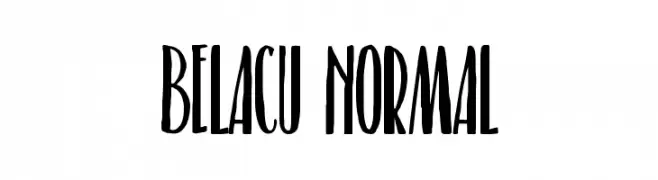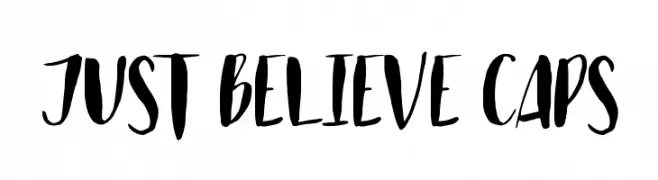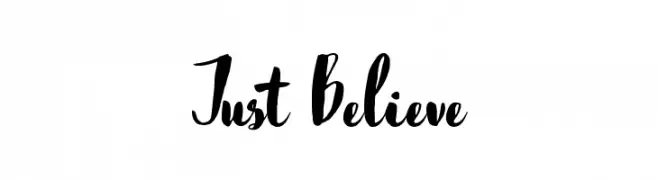
( Fonts by Tiffany Willett )
A playful handwritten font with smooth, rounded edges and consistent stroke width.
( Fonts by Hanoded )
A hand-drawn, sketch-like font with tall, narrow characters and a playful edge.
A bold, angular font with high contrast and dramatic flair.
( Fonts by Chris Vile )
A jagged, thorn-like font with an aggressive and rebellious style.
( Fonts by EvasUniqueFonts )
Ornamental dingbat font with detailed mandala and floral motifs.
A tall, narrow font with consistent stroke width and a modern, sleek appearance.